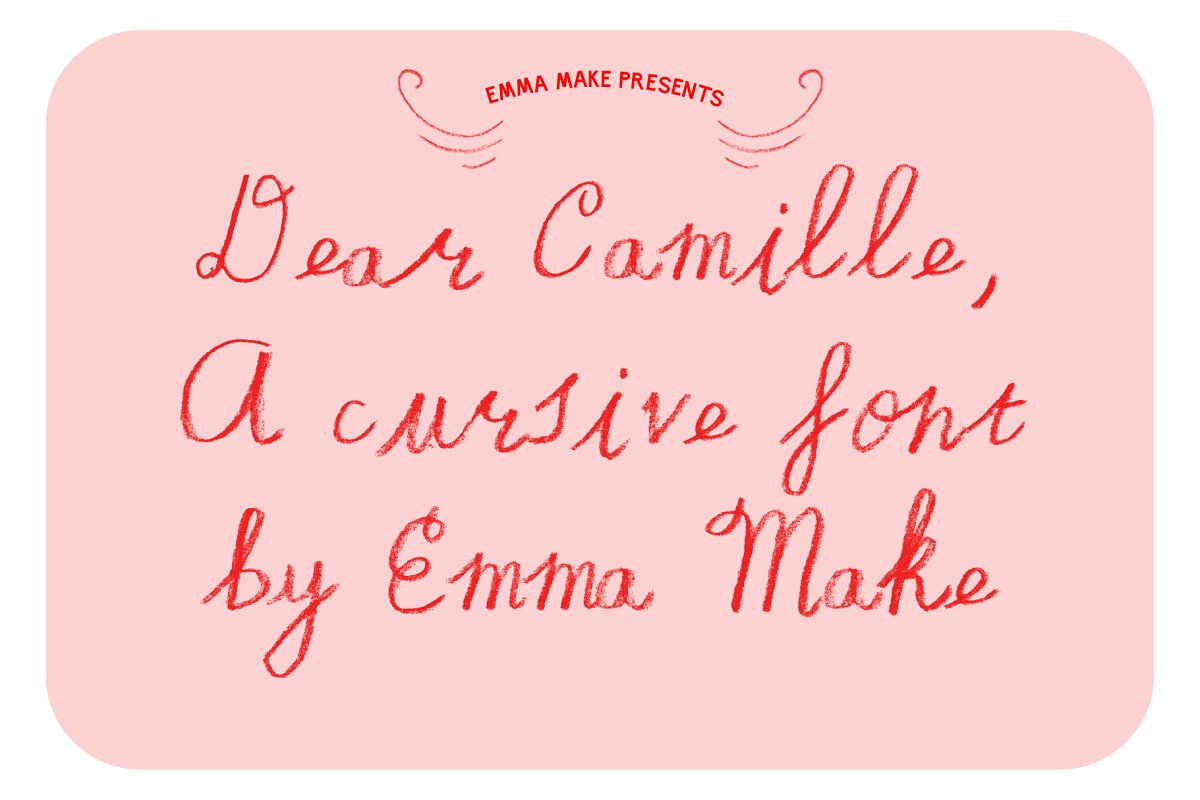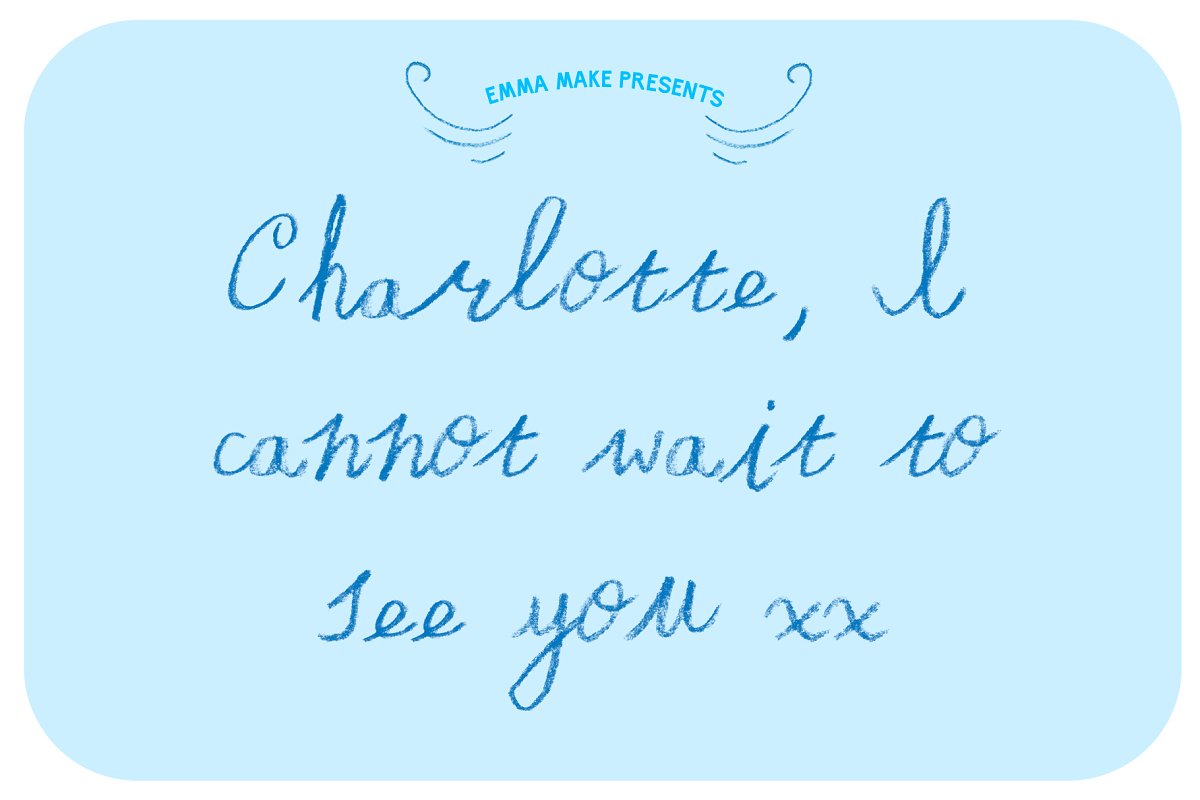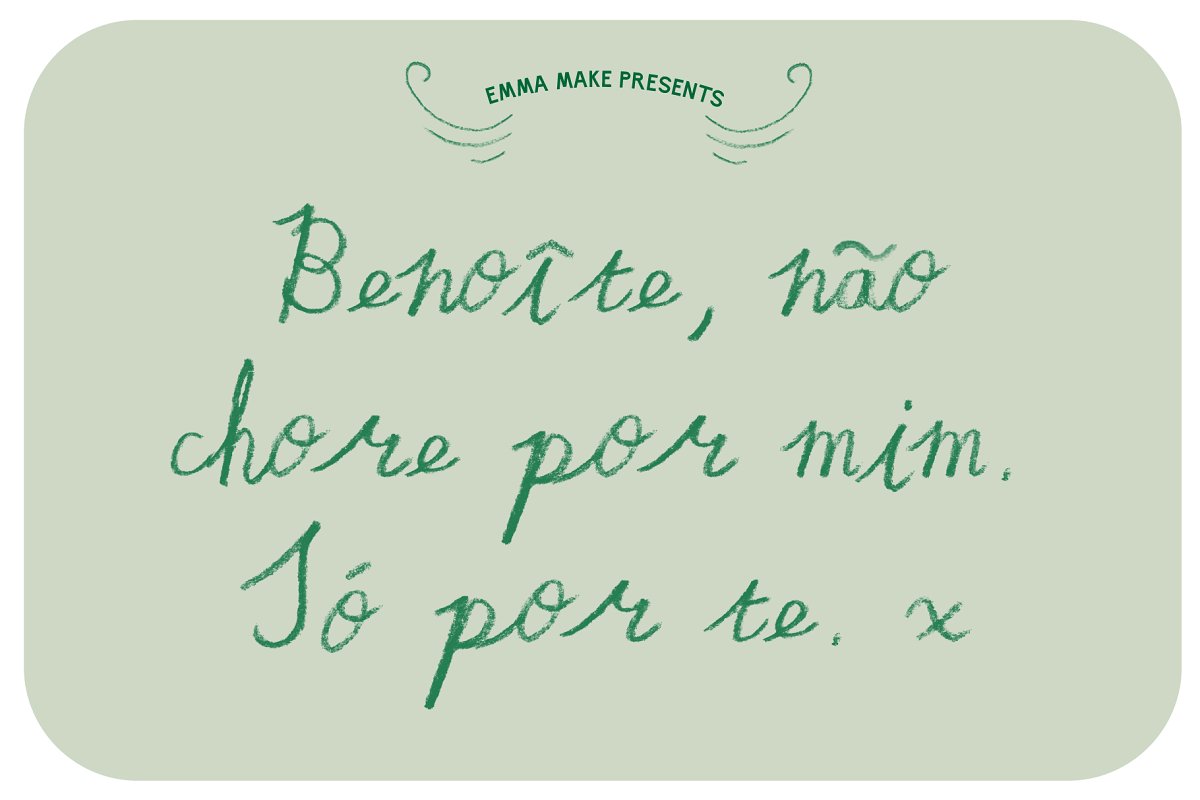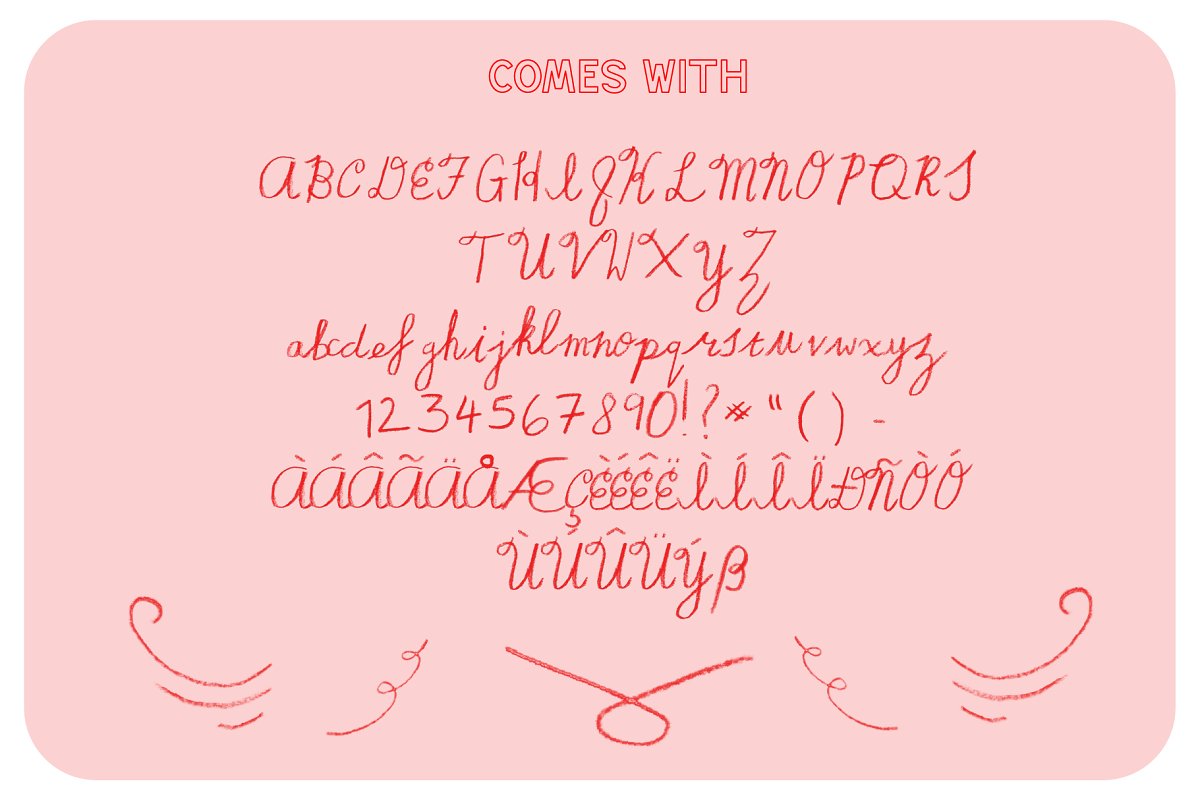
About the Dear Camille; A truly cursive font
A truly cursive font; Dear Camille, is a sweet handwritten pencil crayon type with as much tenderness and character as a love letter, Perfect for letters, stationery, invites and websites, The font file is otf and comes in a red shade, To change the colour you’ll need Photoshop, It is also multilingual, As it’s an SVG font it may not work in Canva